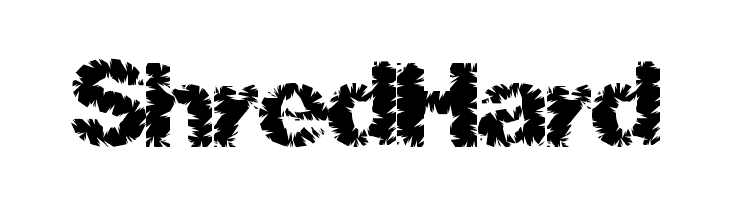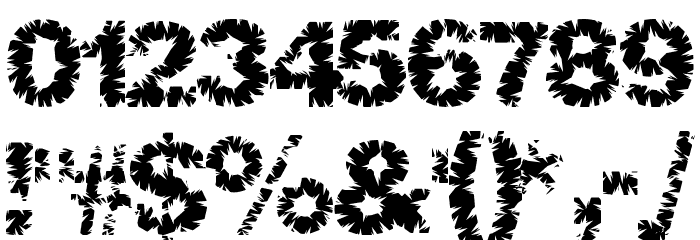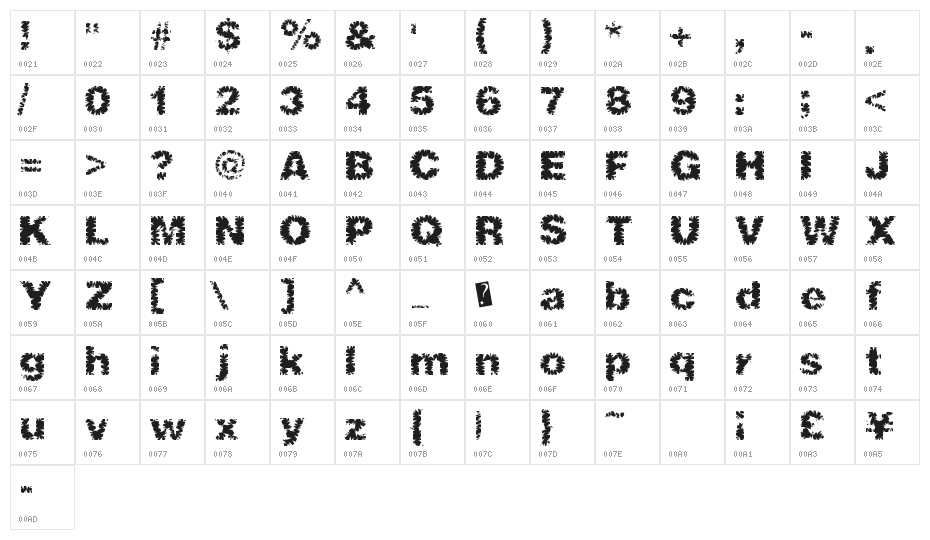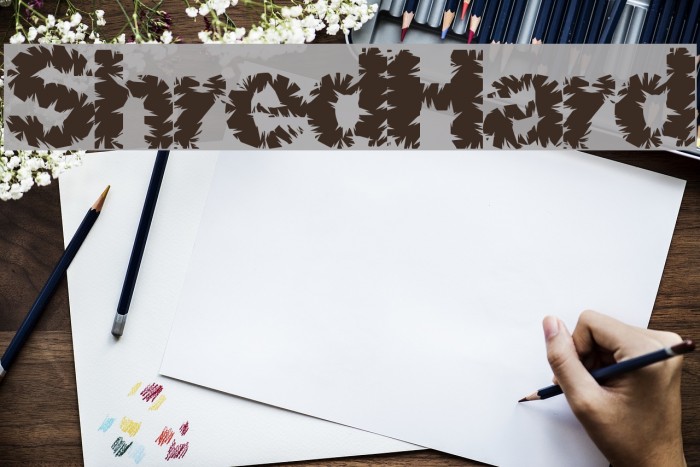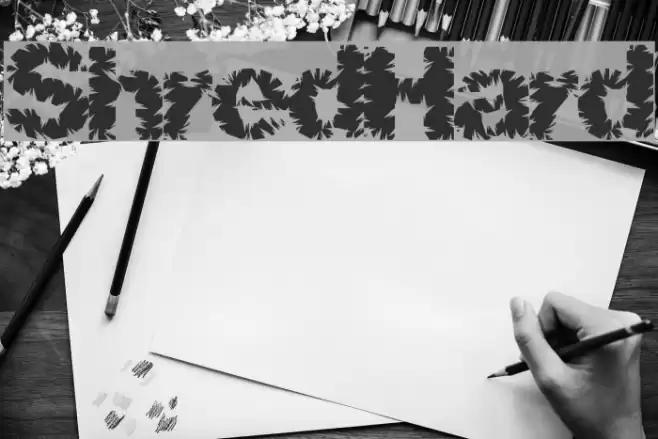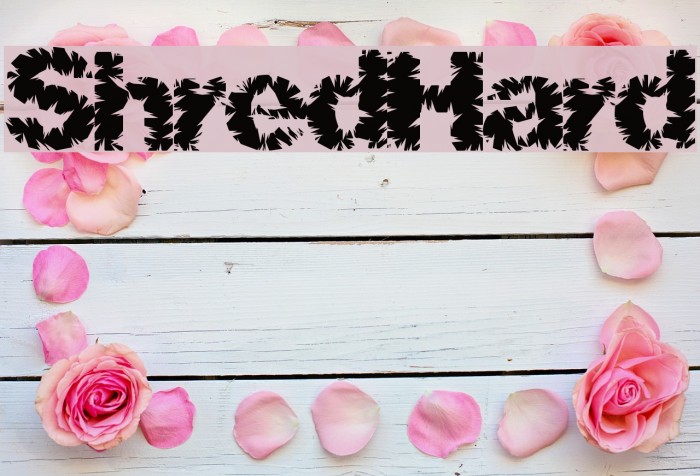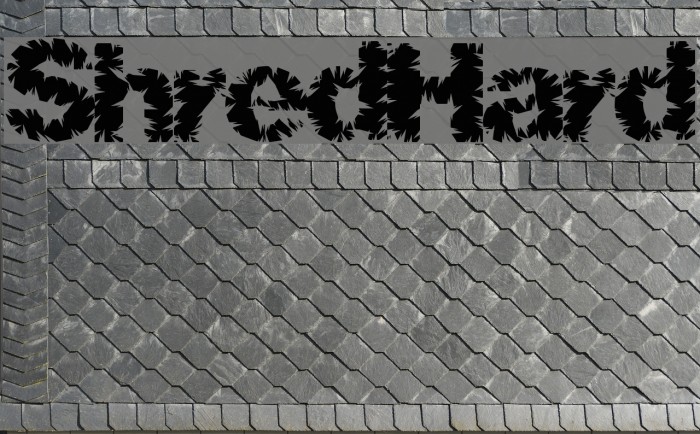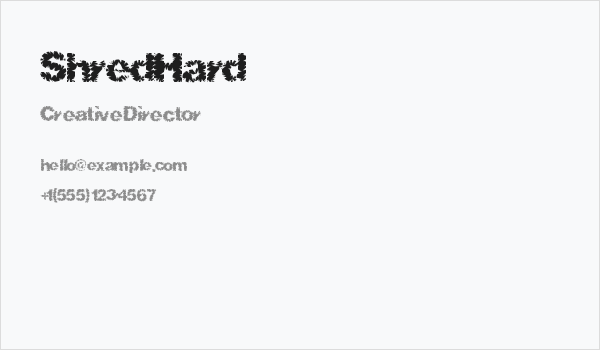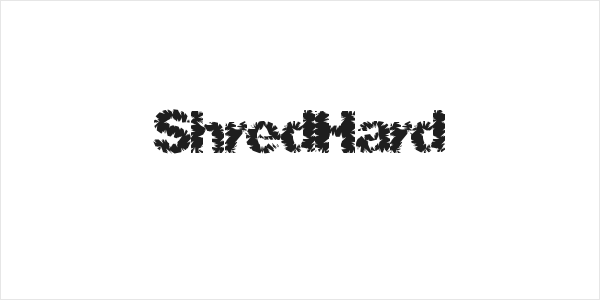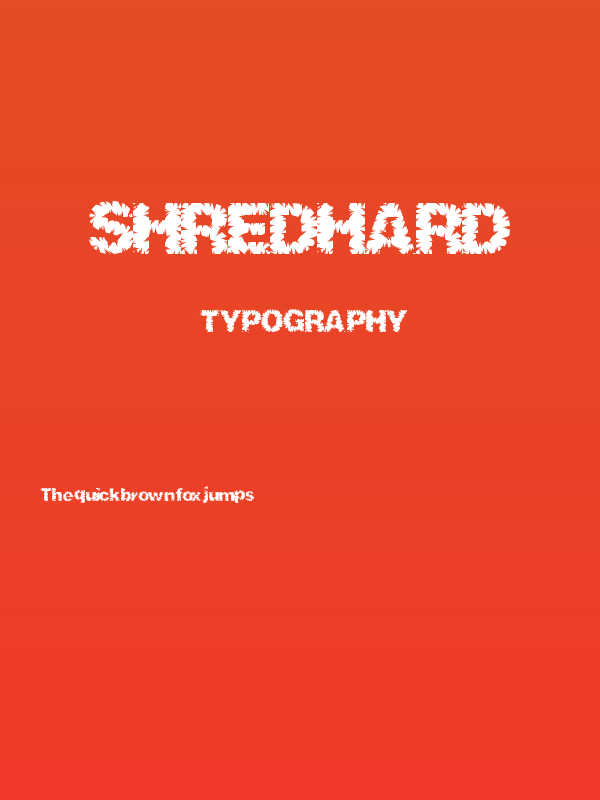
ShredHard Font
ShredHard Description
This font features a bold and edgy design with a shredded, distressed appearance. Each character is filled with jagged, irregular shapes that create a sense of movement and chaos. The uppercase and lowercase letters maintain a consistent style, with sharp edges and a rough texture that gives the font a rebellious and energetic feel. The numbers and special characters follow the same design principles, ensuring a cohesive look across all glyphs. This font is perfect for projects that require a bold statement and a touch of grunge or punk aesthetic.
| Proposed Projects | Ideal for music album covers, event posters, skateboarding brands, or any project needing a rebellious and energetic vibe. |